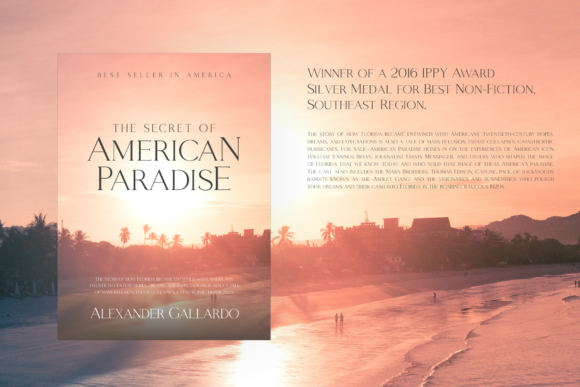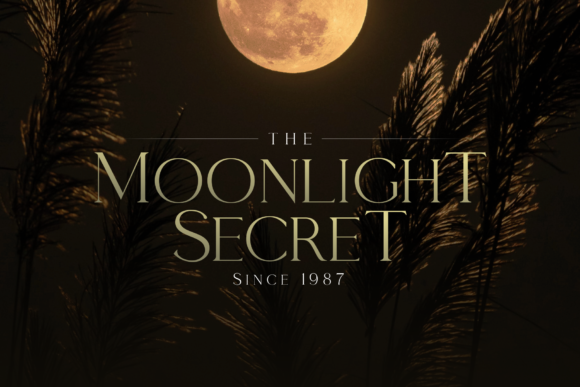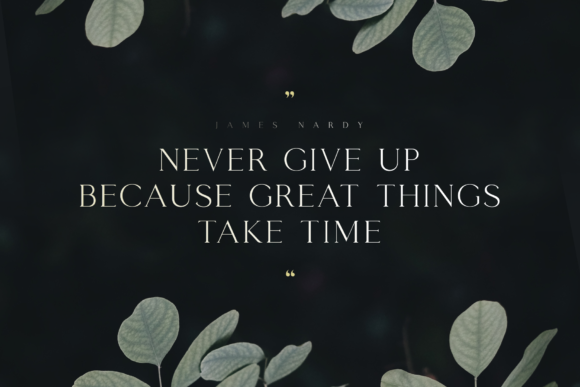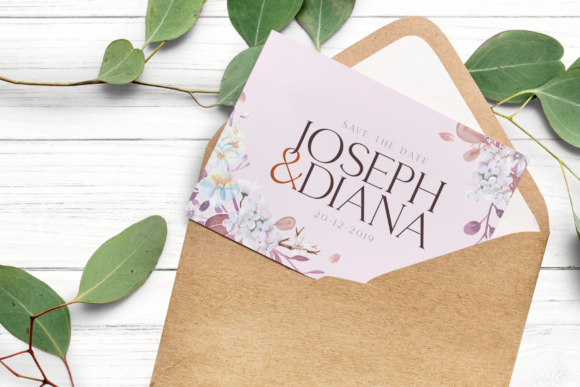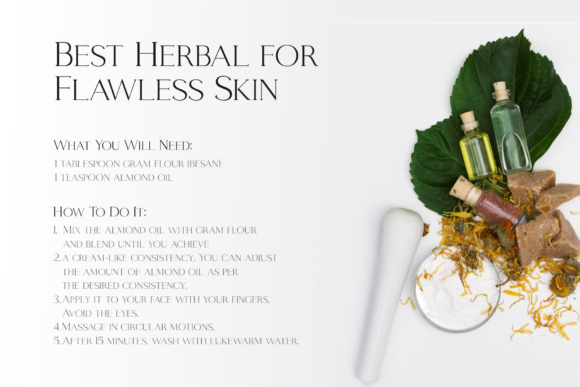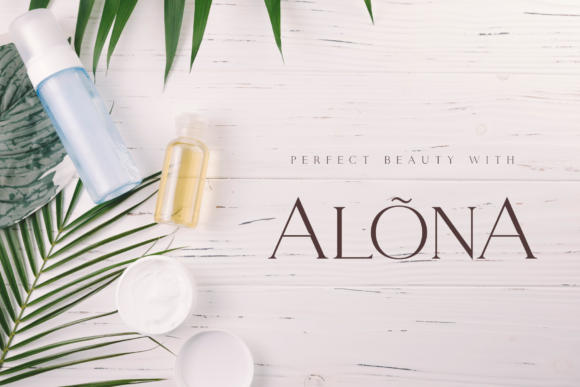
Introducing Giveaway Font: Elevate Your Designs with Elegance and Charm
Are you on the hunt for a font that exudes style, class, and a touch of casual-chic flair? Look no further than Giveaway Font, a stunning serif font that’s sure to captivate your audience with its lovely charm. In this article, we’ll dive into the world of Giveaway Font, exploring its features, benefits, and uses, as well as provide tips and inspiration for designers and crafters looking to elevate their designs.
What is Giveaway Font?
Giveaway Font is a beautifully crafted serif font that boasts a unique blend of elegance and playfulness. Its casual-chic vibe makes it perfect for a wide range of design projects, from branding and advertising to packaging and digital media. With its classic serif lines and stylish flair, Giveaway Font is sure to add a touch of sophistication to any design.
Key Features of Giveaway Font
- Stylish & Classy Design: Giveaway Font features a classic serif design with a stylish twist, making it perfect for designs that require a touch of elegance.
- Casual-Chic Flair: The font’s casual-chic vibe adds a playful touch to any design, making it ideal for brands and designers looking to create a friendly and approachable aesthetic.
- Lovely Charm: Giveaway Font’s unique charm is sure to captivate your audience and leave a lasting impression.
- Versatile: The font is suitable for a wide range of design projects, from print to digital media.
Benefits of Using Giveaway Font
So, why should you choose Giveaway Font for your next design project? Here are just a few benefits of using this stunning serif font:
- Elevate Your Brand: Giveaway Font can help elevate your brand’s aesthetic, adding a touch of sophistication and elegance to your designs.
- Stand Out from the Crowd: The font’s unique charm and stylish design make it the perfect choice for designers looking to create something truly unique and eye-catching.
- Easy to Read: Giveaway Font is clear, legible, and easy to read, making it perfect for body text and headlines.
Uses of Giveaway Font
Giveaway Font is a versatile font that can be used for a wide range of design projects, including:
- Branding and Advertising: Use Giveaway Font to create stunning logos, business cards, and ad campaigns that exude elegance and sophistication.
- Packaging Design: Add a touch of class to your packaging designs with Giveaway Font, perfect for product labels, packaging inserts, and more.
- Digital Media: Use Giveaway Font to create engaging social media graphics, blog posts, and website headers that capture your audience’s attention.
Tips for Using Giveaway Font
Here are a few tips for getting the most out of Giveaway Font:
- Experiment with Font Sizes: Giveaway Font looks great in a variety of font sizes, from large headings to smaller body text.
- Pair with Other Fonts: Try pairing Giveaway Font with other fonts to create a unique and eye-catching combination.
- Use for Headlines and Titles: Giveaway Font is perfect for headlines and titles, adding a touch of elegance and sophistication to your designs.
Need some inspiration for your next design project? Here are a few ideas to get you started:
- Create a Luxe Brand Identity: Use Giveaway Font to create a luxurious brand identity that exudes elegance and sophistication.
- Design a Beautiful Website: Add a touch of class to your website with Giveaway Font, perfect for website headers, titles, and more.
- Make a Statement with Packaging: Use Giveaway Font to create stunning packaging designs that capture your audience’s attention.
In conclusion, Giveaway Font is a stylish and classy serif font that’s perfect for designers and crafters looking to elevate their designs with elegance and charm. With its casual-chic flair, lovely charm, and versatility, Giveaway Font is sure to become a staple in your font collection. So why wait? Get inspired by Giveaway Font today and take your designs to the next level!
| Font Name | Giveaway Font |
| Author | sensatype |